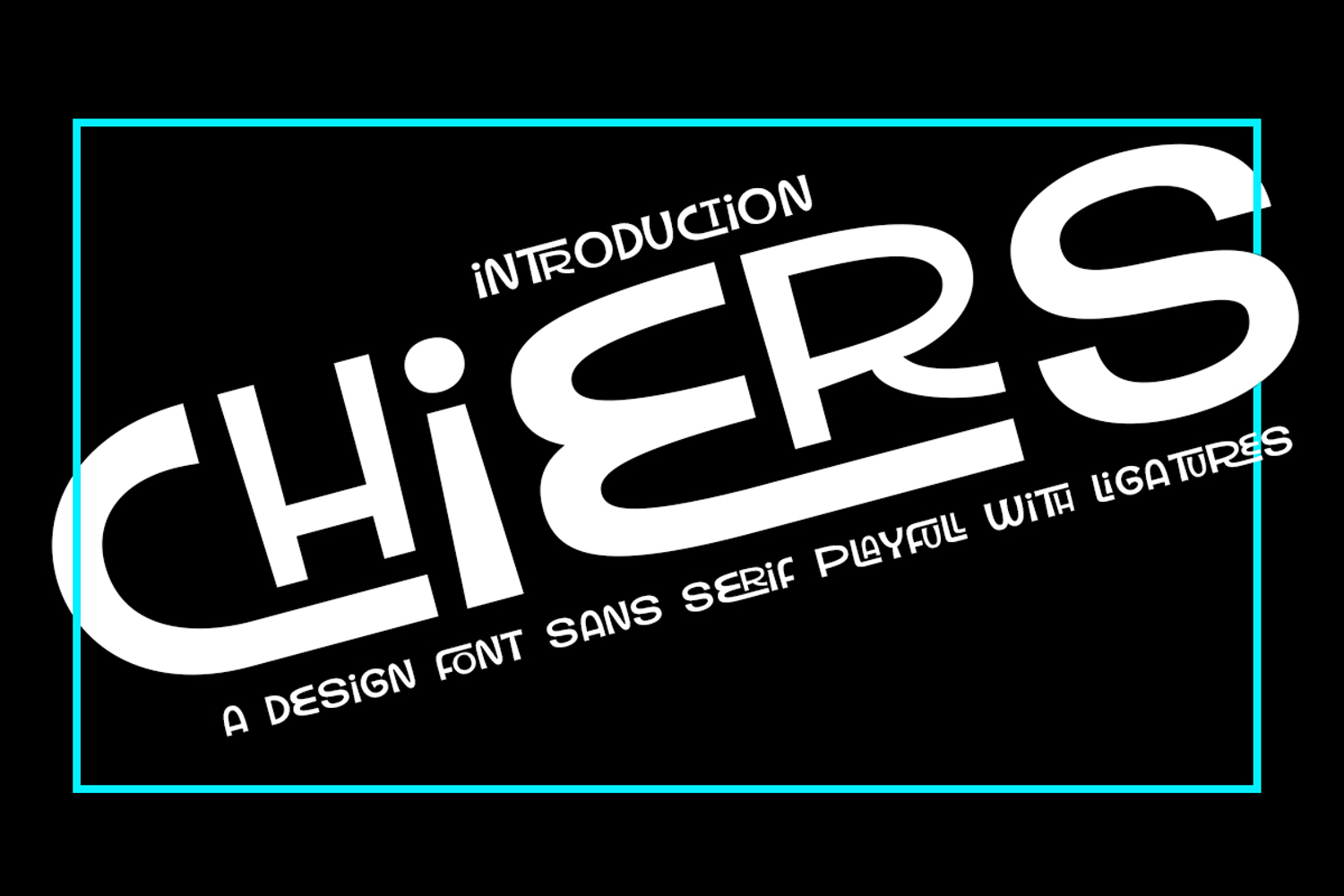
Chiers
Raise a glass to your next creative project with Chiers, a playful sans-serif display font designed to bring a sense of celebration and modern flair to your typography. This typeface features unique, stylized letterforms characterized by a mix of geometric curves and sharp, avant-garde cuts. With its extensive set of creative ligatures and “mod” aesthetic, Chiers is the premier choice for luxury event branding, sophisticated cocktail bar menus, high-end fashion mastheads, and contemporary logo design. It is a font that invites your audience to join the party.